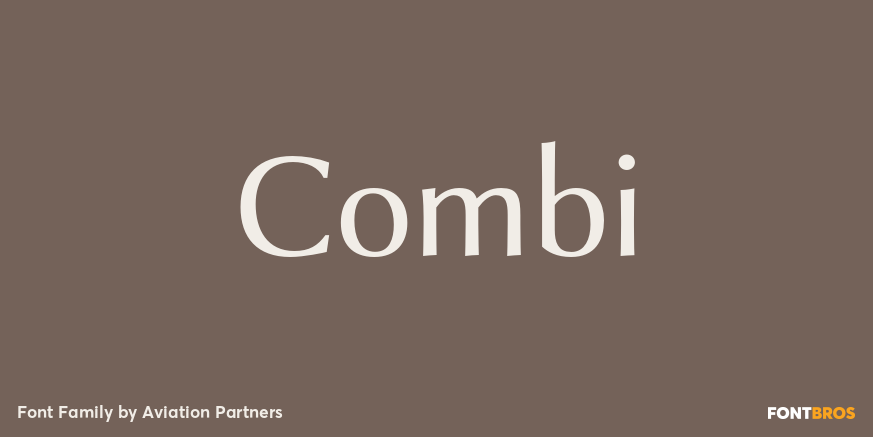
Combi
About Combi
The Combi collection includes Sans, Sans Oblique, a true Italic, Serif, Serif Oblique and a set of Openface capitals. Combi fonts have 5 compatible weights and metrics allowing them to be used in free combination. Inspiration came from Jan Van Krimpen\’s…